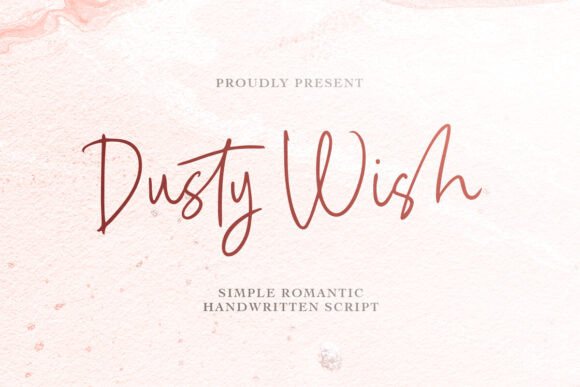
Dusty Wish Font: A Simple and Romantic Handwritten Font for Your Design Needs
In the world of typography, fonts play a crucial role in conveying the tone and personality of a brand or design. A well-chosen font can elevate your project from ordinary to extraordinary. If you’re looking for a font that exudes simplicity and romance, look no further than the Dusty Wish font. In this article, we’ll explore the features and benefits of this beautiful handwritten font and how it can enhance your design projects.
What is Dusty Wish Font?
Dusty Wish is a simple and romantic handwritten font that is perfect for a variety of design projects. Its elegant and flowing script makes it ideal for use in branding, quotes, logos, and more. The font’s simplicity and charm make it an excellent choice for designers looking to add a touch of personality to their work.
Key Benefits of Using Dusty Wish Font
- Simple and Romantic: Dusty Wish font boasts a beautiful, handwritten script that is both simple and romantic. Its elegant strokes and curves make it perfect for designs that require a touch of sophistication.
- Multi-Language Support: This font supports multiple languages, making it a versatile choice for designers working on international projects.
- Versatile: Dusty Wish font can be used for a wide range of design projects, including branding, quotes, logos, and more.
- Complimentary Font: You can pair Dusty Wish font with other fonts to create a unique and visually appealing design.
How to Use Dusty Wish Font in Your Design Projects
Dusty Wish font is an excellent choice for various design projects, including:
- Branding: Use Dusty Wish font to create a unique and memorable brand identity. Its elegant script makes it perfect for logos, business cards, and letterheads.
- Quotes and Typography: Add a touch of romance and personality to your quotes and typography with Dusty Wish font.
- Logos: Create a stunning logo for your business or personal brand using Dusty Wish font.
- Complimentary Font: Pair Dusty Wish font with other fonts to create a visually appealing design.
Pairing Dusty Wish Font with Other Fonts
Pairing Dusty Wish font with other fonts can create a unique and visually appealing design. Here are some font pairing suggestions:
- Serif Fonts: Pair Dusty Wish font with serif fonts, such as Times New Roman or Georgia, for a classic and elegant look.
- Sans-Serif Fonts: Combine Dusty Wish font with sans-serif fonts, such as Arial or Helvetica, for a modern and clean design.
- Script Fonts: Pair Dusty Wish font with other script fonts, such as Pacifico or Great Vibes, for a beautiful and elegant design.
Tips for Using Dusty Wish Font Effectively
Here are some tips for using Dusty Wish font effectively in your design projects:
- Use it Sparingly: Use Dusty Wish font sparingly to avoid overwhelming your design. Use it for headings or titles to add a touch of elegance.
- Experiment with Colors: Experiment with different colors to find the perfect combination that complements your design.
- Pay Attention to Kerning: Pay attention to kerning to ensure that your text is evenly spaced and visually appealing.
In conclusion, Dusty Wish font is a beautiful and versatile handwritten font that is perfect for a variety of design projects. Its simplicity and romance make it an excellent choice for designers looking to add a touch of personality to their work. With its multi-language support and pairing possibilities, Dusty Wish font is a great addition to any designer’s font library.